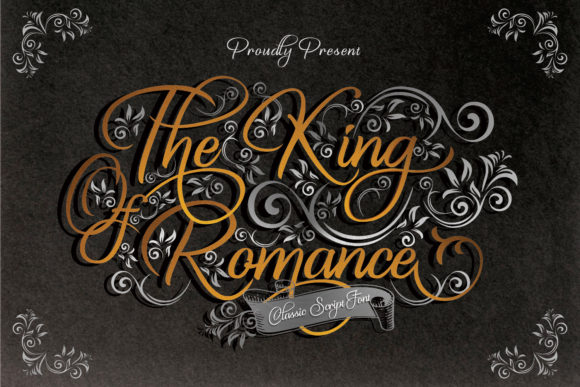
The King of Romance: A Font That Elevates Creativity and Expression
The King of Romance is more than just a font—it's a statement. As a classic and elegant handwritten font, it brings a sense of sophistication and charm to any design project. Its unique characteristics, such as alternative characters and ligatures, add depth and visual interest, making it a favorite among designers and creatives who want to stand out.
Whether you're designing wedding invitations, creating logos, or crafting marketing materials, The King of Romance offers a level of elegance that is hard to match. It's not just about the look; it's about the feeling it evokes. This font can transform simple text into something memorable and impactful.
Understanding The King of Romance
The King of Romance is a handwritten font that mimics the natural flow of cursive writing. Unlike many digital fonts that feel rigid or overly stylized, this font has a personal touch that makes it feel authentic. Each stroke seems to carry the weight of emotion, which is why it's often used in romantic or sentimental contexts.
One of the key features of The King of Romance is its inclusion of alternative characters and ligatures. These elements allow for greater flexibility in design, enabling users to create unique typographic combinations that enhance the overall aesthetic of their work. For example, using ligatures can make words like "love" or "forever" appear more fluid and expressive.
Designers may struggle with finding a font that balances elegance with readability. Too much style can make text difficult to read, while too little style can make it blend into the background. The King of Romance addresses this challenge by offering a visually appealing yet legible option that works across various media types.
Another common goal is to evoke a specific emotion or mood through typography. In the case of The King of Romance, the font naturally conveys warmth, affection, and nostalgia—making it ideal for projects that aim to connect on an emotional level.
For those looking to create a strong visual identity, The King of Romance can serve as a powerful tool. It’s particularly effective in industries such as wedding planning, luxury goods, and lifestyle brands where aesthetics play a crucial role in brand perception.
Many designers have found success by integrating The King of Romance into their creative workflow. One practical application is in the creation of custom illustrations or calligraphy pieces. The font's natural flow allows for seamless integration with hand-drawn elements, resulting in cohesive and visually striking compositions.
Additionally, The King of Romance is well-suited for use in editorial design. When paired with appropriate imagery and layout techniques, it can help guide the reader's attention and enhance the storytelling aspect of the content.
Another benefit of using this font is its versatility. While it's often associated with romantic themes, its clean lines and balanced structure also make it suitable for more modern or minimalist designs. This adaptability ensures that it remains relevant across different design trends and industries.
Depending on the designer's experience and the project's requirements, there are different ways to approach The King of Romance. Beginners might start by experimenting with basic text layouts to understand how the font behaves in different sizes and weights. More experienced designers can explore advanced typographic techniques, such as combining the font with other typefaces or using it in multi-layered compositions.
It's also important to consider the context in which the font will be used. For instance, when designing for print versus digital platforms, adjustments may need to be made to ensure optimal readability and visual impact. Testing the font in different environments can help identify potential issues and refine the final design.